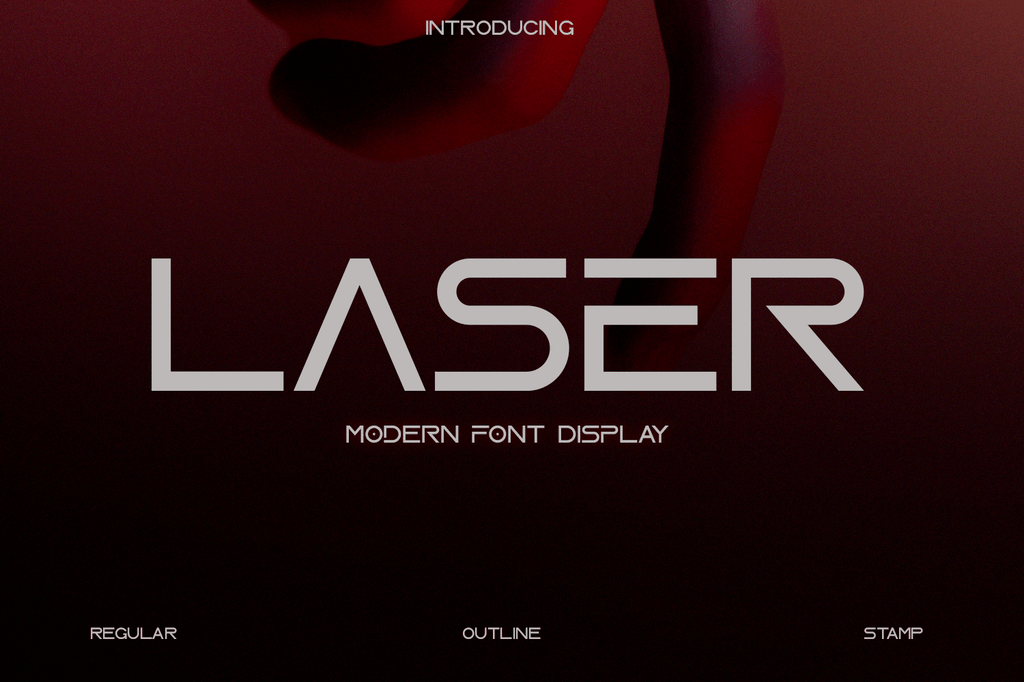
Laser Font Is A Minimal & Modern Sans Serif / Display Typeface That Stands Out From Crowd.
Laser font is a basic, sans serif typeface. The program will allow the user to choose between different. Are you looking for the perfect laser cut fonts?.
That gives an impressive, clean, modern, and extremely elegant look to the projects. Free fonts often have not all characters and signs,. You can use the laser to create.